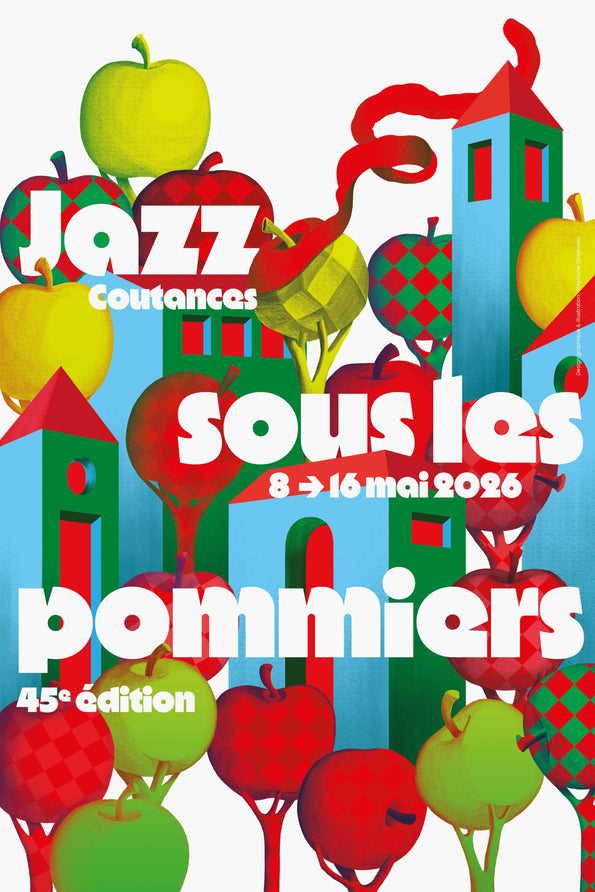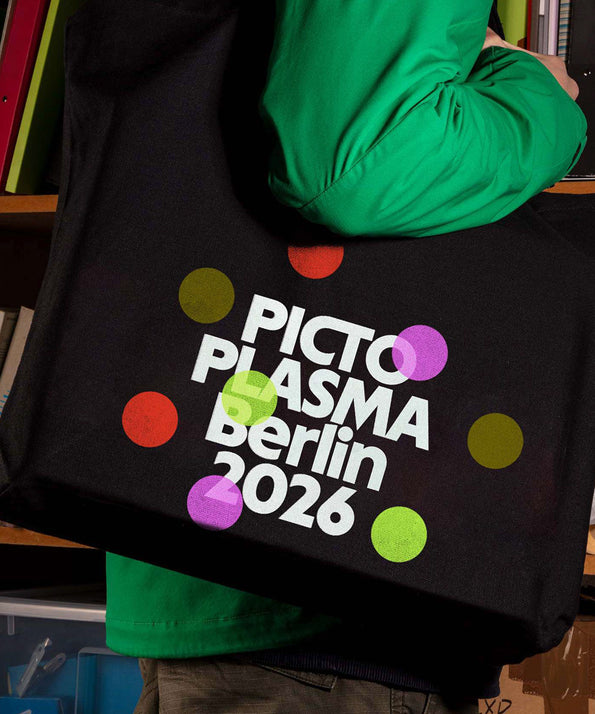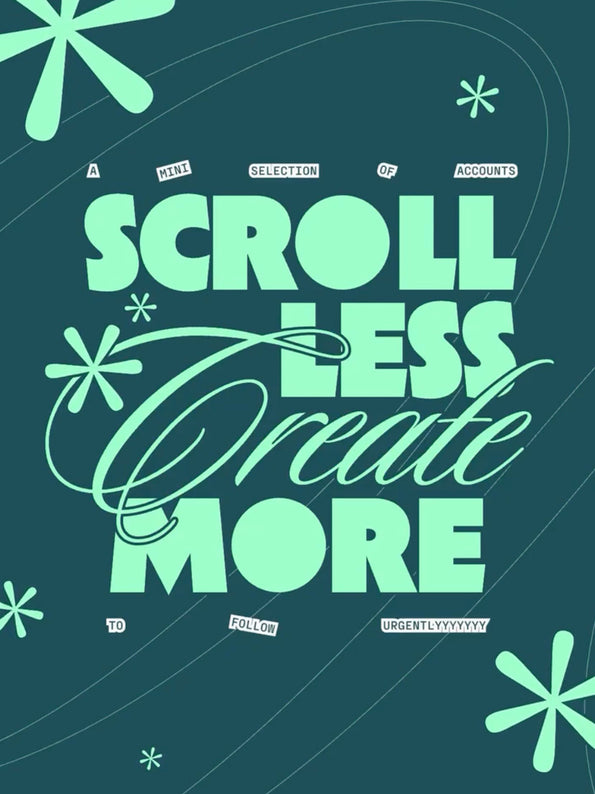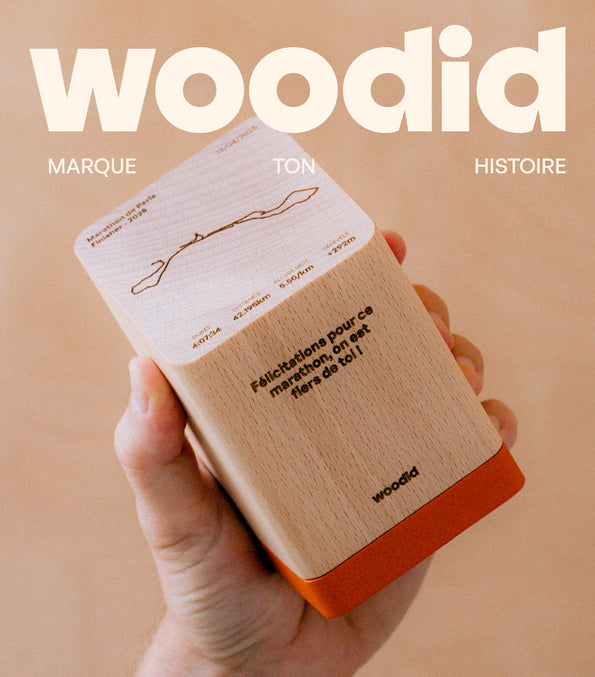
Melun Collection
3 sub-families: Normal + High + Display
Your new retro
sans-serif
Features
Stylistic set 01
Stylistic set 02
Stylistic set 03
Stylistic set 04
Stylistic set 05
Stylistic set 06
Slashed zero
Superior / Inferior
Numerator / Denominator
Circled numbers
Negative circled numbers
Arrows and Pictograms
The Melun family is a geometric sans-serif with retro influences, presented in 3 subfamilies.
Melun (Normal), available in 5 weights + italics. Melun High, a semi-display version with a high x-height, also in 5 weights + italics. And Melun Display, with much more radical shapes, available in 6 weights.